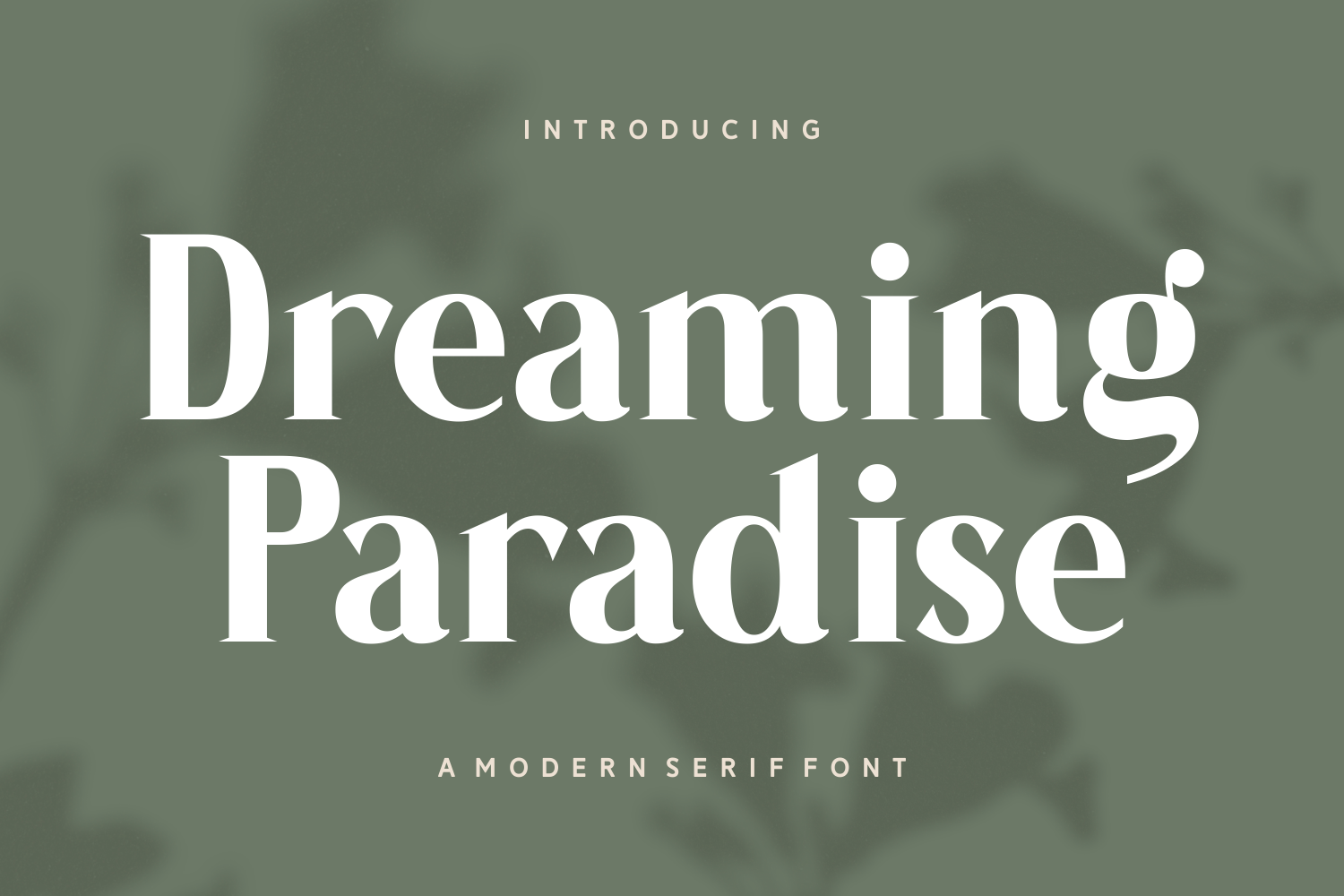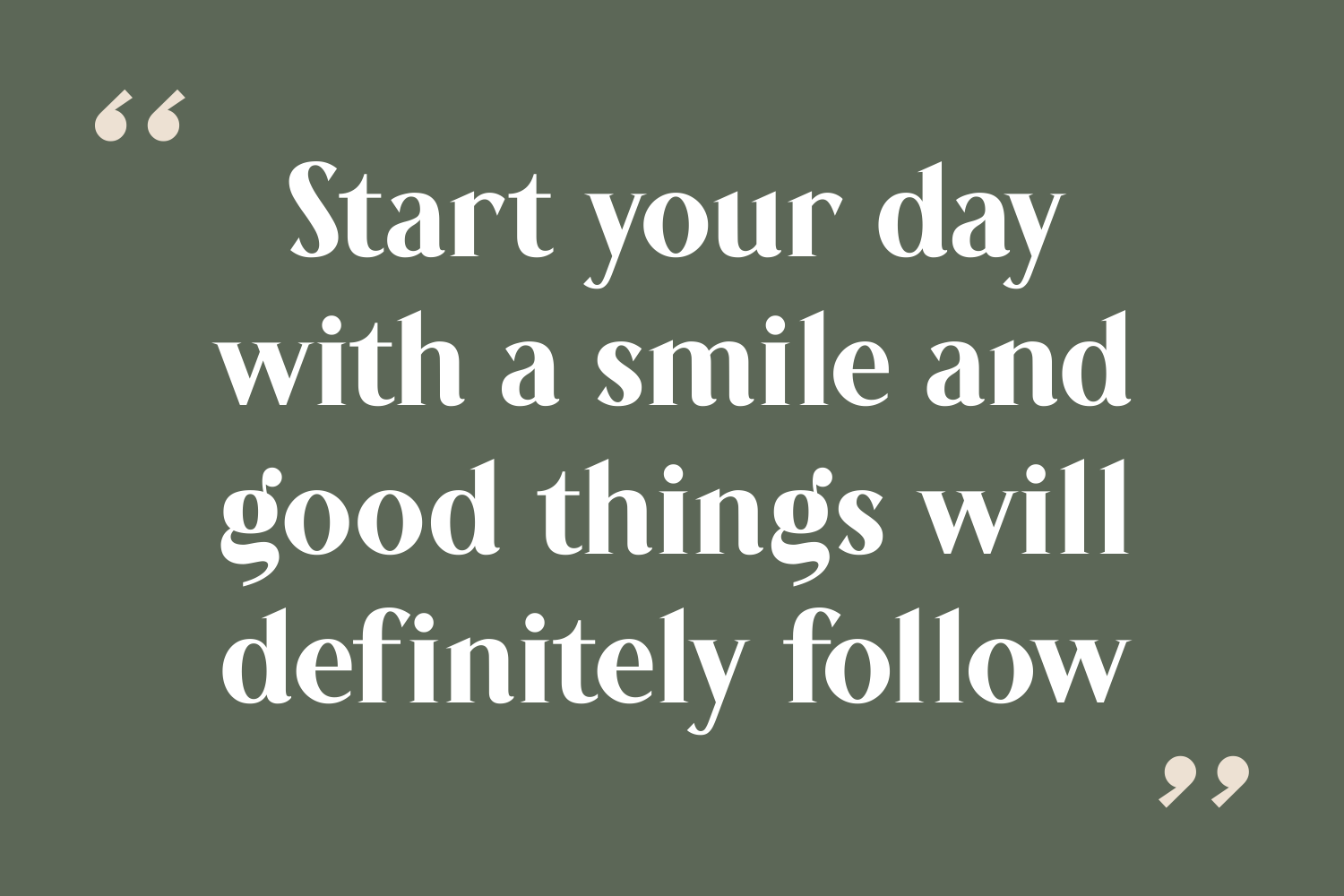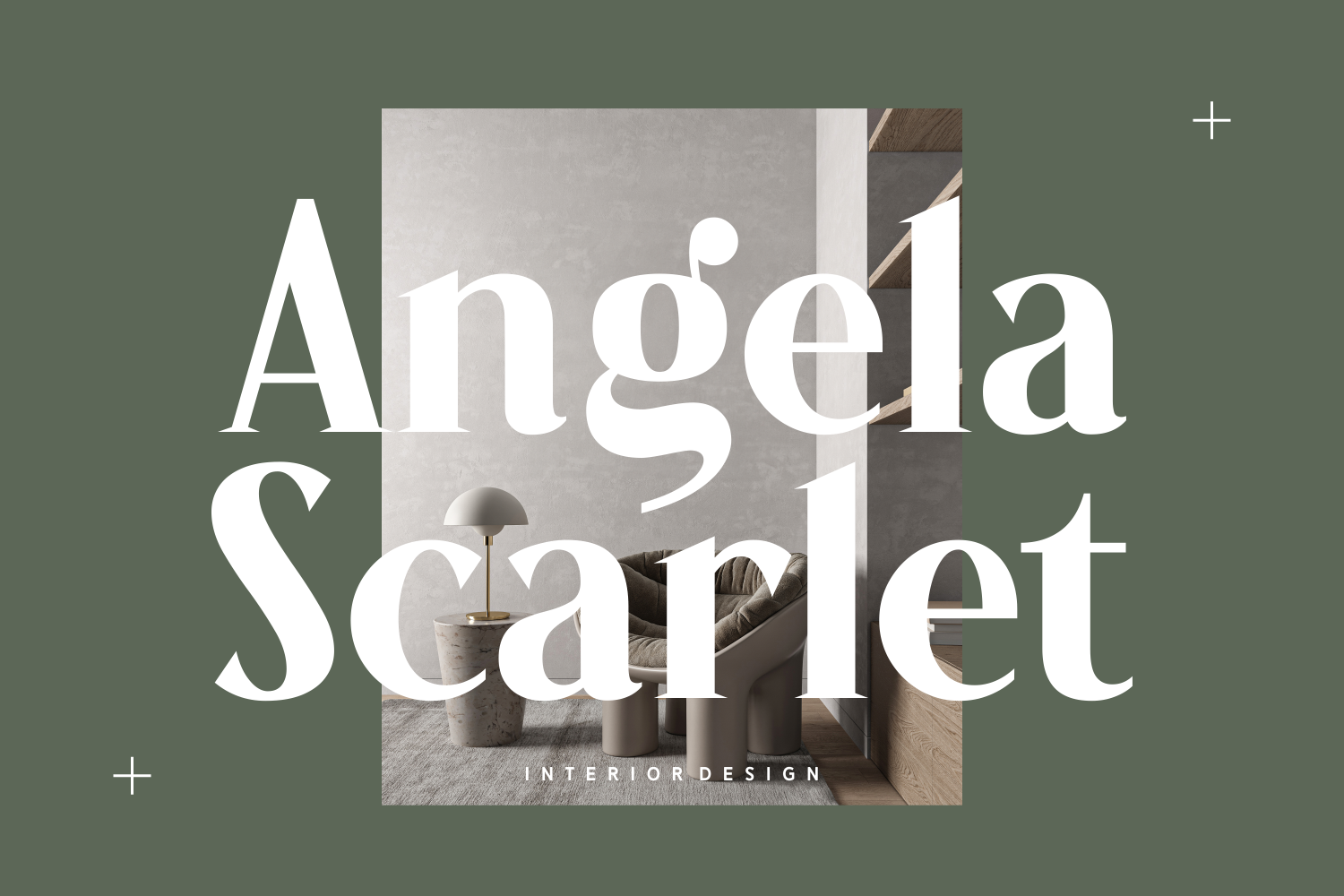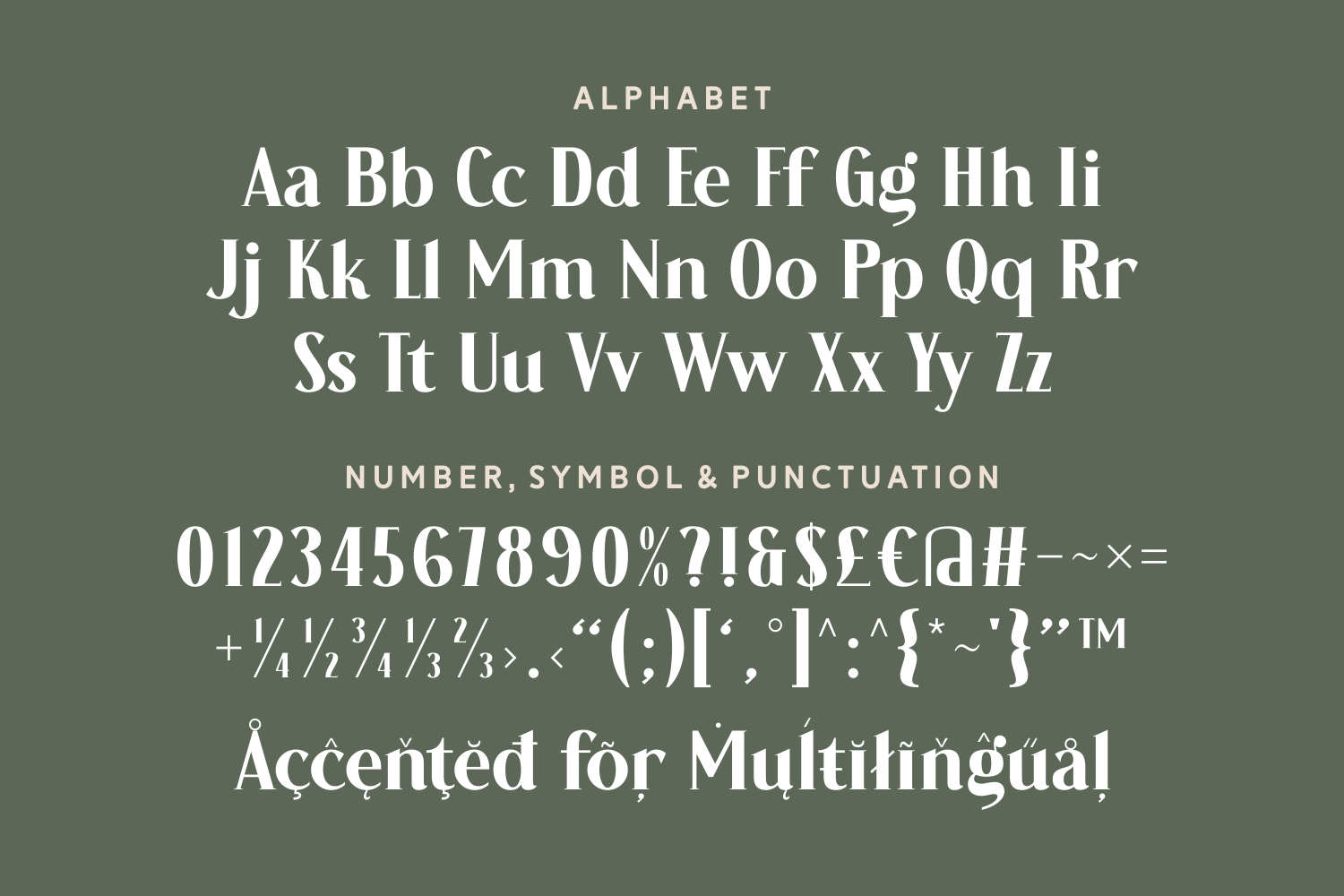
Dreaming Paradise
Dreaming Paradise is a sophisticated modern serif font that strikes the perfect balance between elegance and flair. With its high-contrast letterforms, sharp serifs, and subtle curves, this typeface radiates a refined personality while maintaining approachability.
Whether you're crafting a timeless wedding invitation or a sleek minimalist poster, Dreaming Paradise adds a touch of luxury and class to every design.